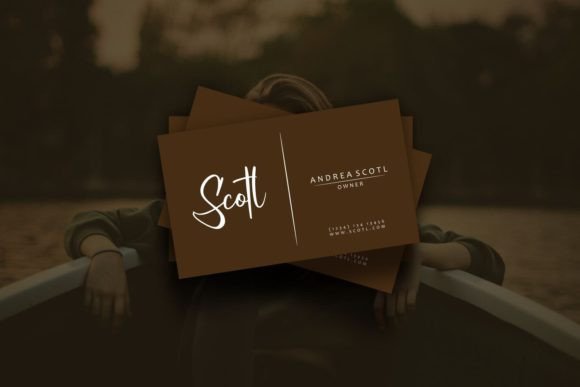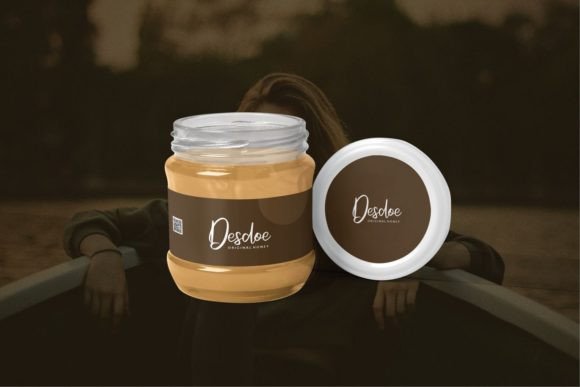
Callista Font
Callista – Modern Script is a stylish and contemporary font that adds a sleek touch to your projects. With smooth, flowing lines, this font brings a modern flair to your text. Perfect for a variety of uses, from invitations to branding, Callista effortlessly blends sophistication with a touch of trendiness. Upgrade your designs with the clean and elegant aesthetics of Callista – Modern Script.